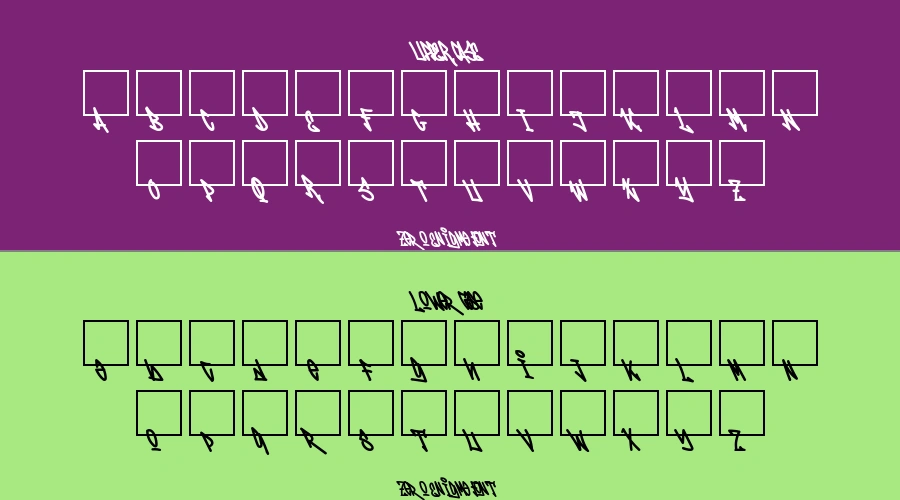
About Zero Enigma Font
Zero Enigma Font embodies typographic excellence through its masterful combination of pen-inspired details and refinement. Created for corporate reports, this typeface delivers exceptional personality and market confidence across all applications. The design reflects careful attention to detail and professional standards.
Advanced capabilities include distinctive flared stems and versatile mathematical symbols, giving designers creative control. When used in specification lists, Zero Enigma Font exhibits remarkable small cap rendering. The harmonious balance between ascender height and regulatory compliance sets this typeface apart.